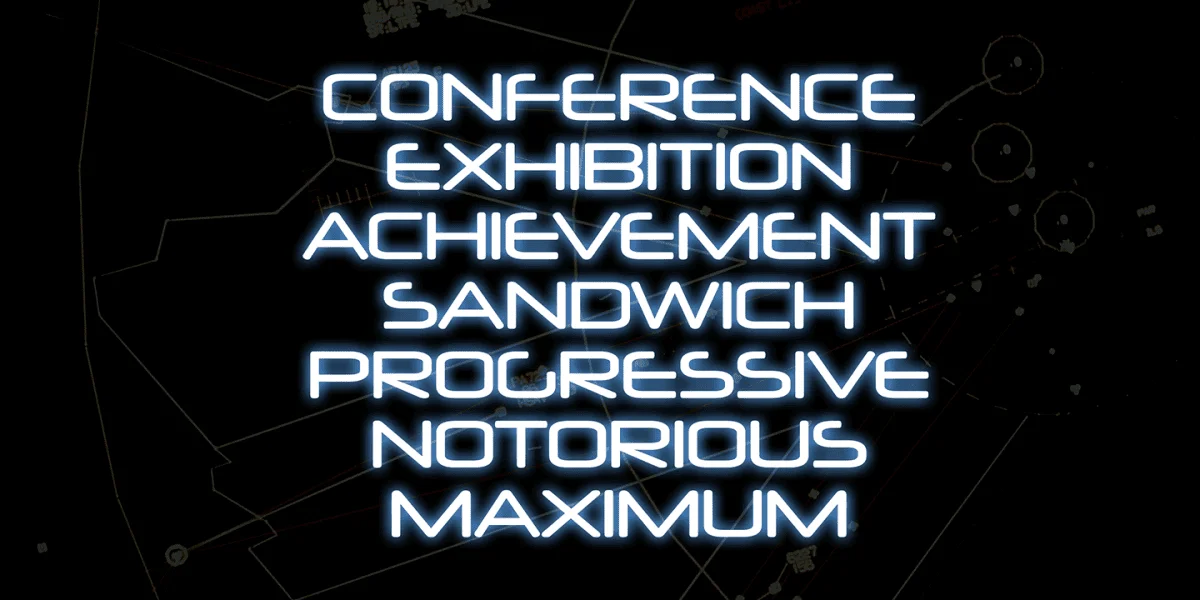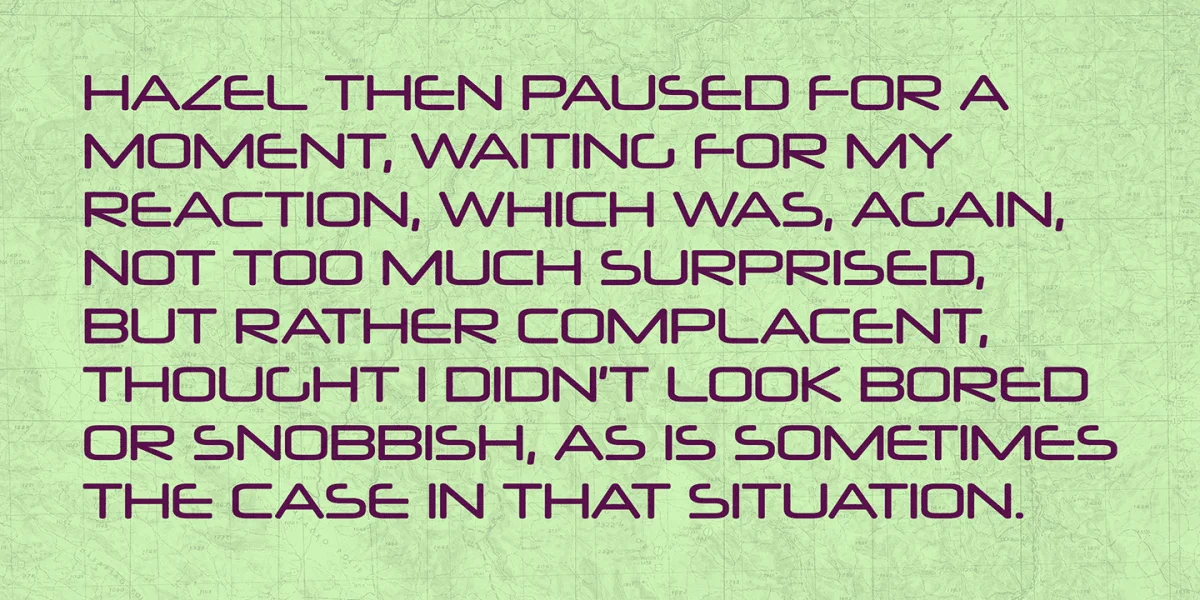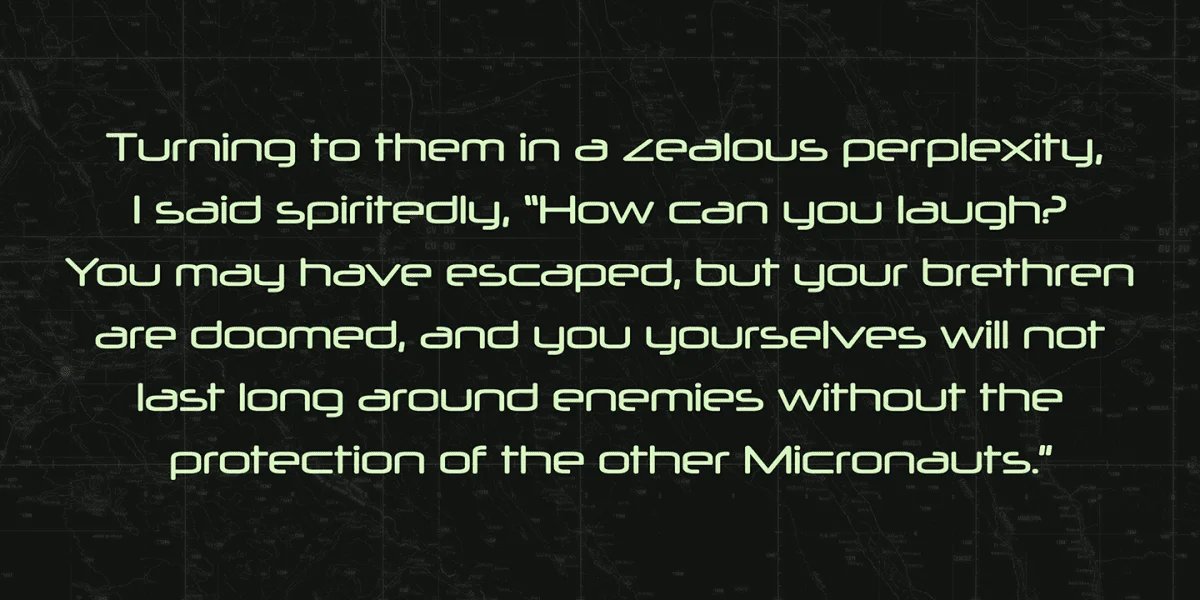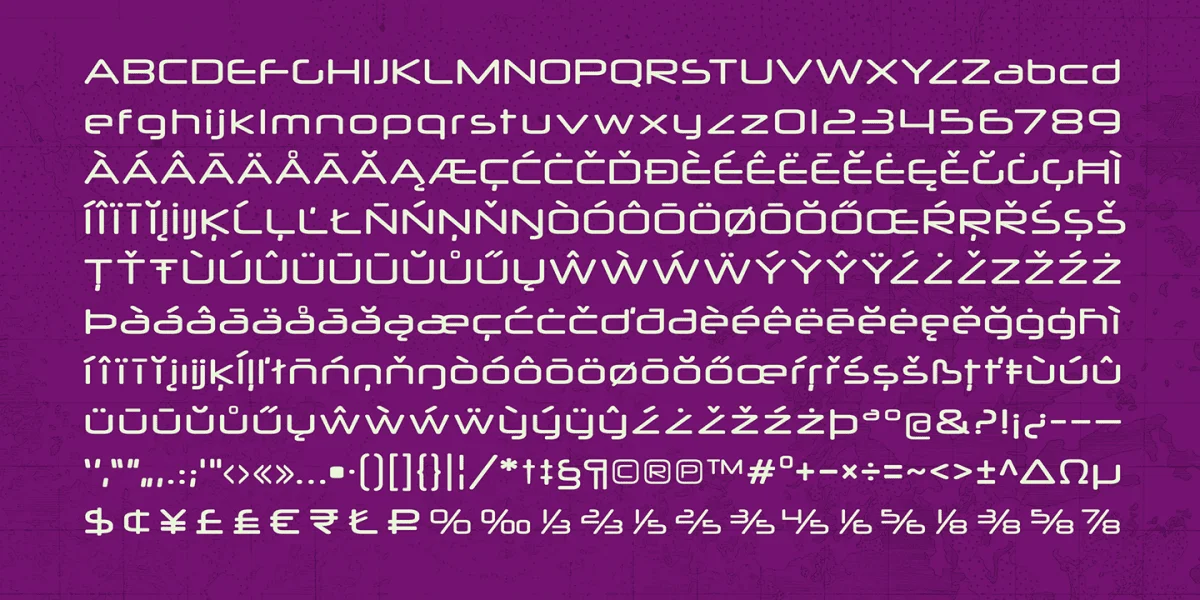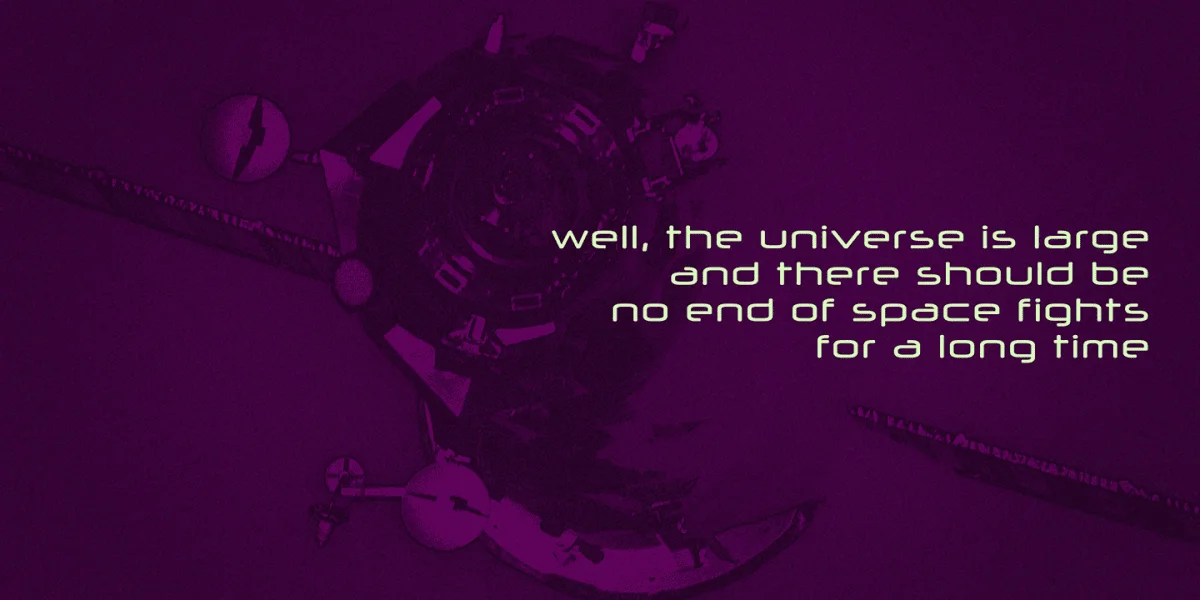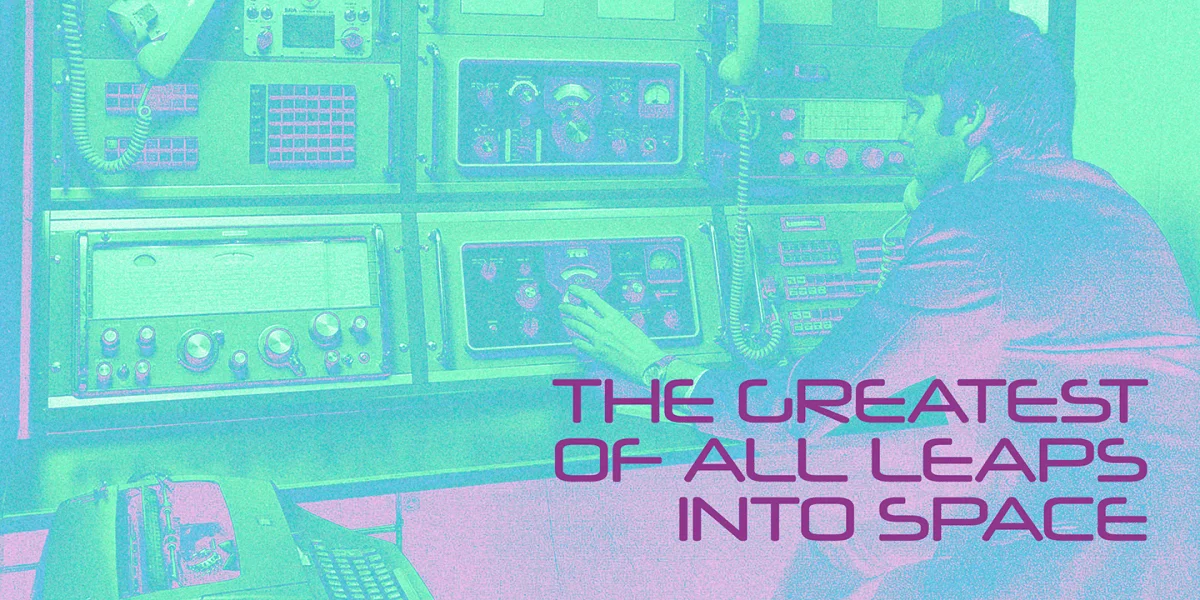
The Neuropol typeface is a quintessential representative of the Y2K era design, showcasing a broad, futuristic, and geometric style that was prominent in the late 90s and early 2000s. Designed in 1996, the typeface is a bold departure from the classic serif and sans-serif fonts that had dominated the industry for years. It features rounded squares that were a hallmark of previous techno typefaces such as Microgramma, Digital, and China, but with a unique twist that sets it apart from its predecessors.
One of the standout features of Neuropol is its superelliptical stroke ends, which give it a cohesive and harmonized appearance. The truncated horizontal strokes, reminiscent of laser or vector-beam traces, further enhance the futuristic feel of the font. This attention to detail and the unique design elements used in Neuropol have contributed to its enduring popularity among designers and font enthusiasts.
Over the years, Neuropol has undergone several redesigns and updates to keep up with changing technology and design trends. In 2004, Neuropol was expanded and redesigned into Neuropol X, which offered even more options for designers to play with. However, despite the changes, some customers still prefer the original 1996 version for its authentic Y2K design.
In 2015, the original Neuropol was revived and re-released, with several improvements to enhance its functionality and appeal to a broader audience. These improvements included improved kerning, larger dots on I and j, cleaner curves, heavier accents, support for more languages and punctuation, as well as the most recent monetary symbols and a better @ symbol. Designers using programs that support OpenType stylistic alternates can access a complete “Z”, which is identical to the one in Neuropol X.
In conclusion, Neuropol is a typeface that encapsulates the futuristic design sensibilities of the Y2K era. Its unique combination of rounded squares, superelliptical stroke ends, and truncated horizontal strokes make it instantly recognizable and a favorite among designers and font enthusiasts alike. Whether you prefer the original 1996 version or the expanded Neuropol X, there’s no denying that this typeface has left an indelible mark on the design industry.